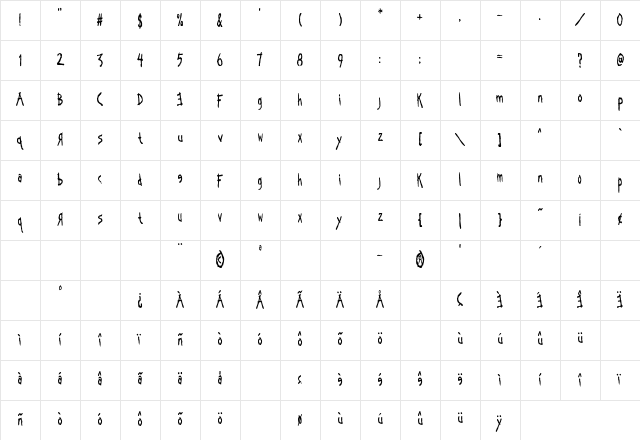
Complete KoRnOgRaPhY Regular glyph index. Displaying only characters natively supported by KoRnOgRaPhY Regular font.
KoRnOgRaPhY is a composed and adaptable typeface that performs quietly and consistently across a wide range of design contexts.